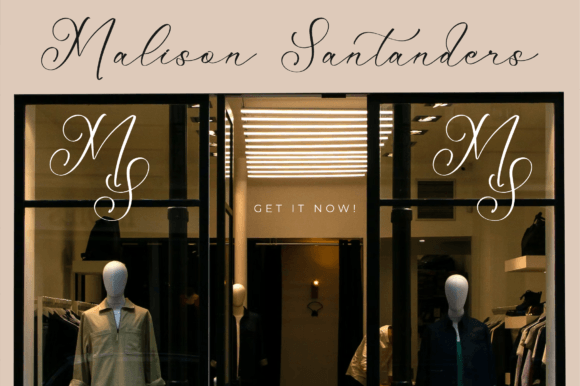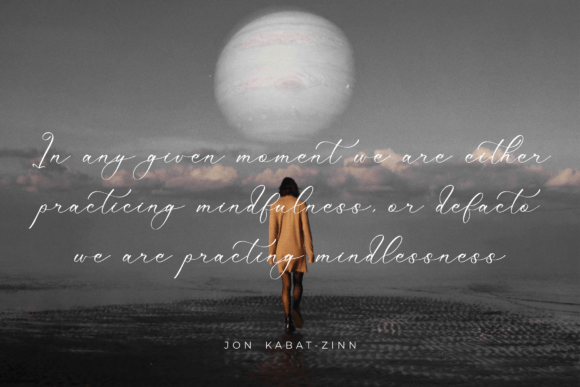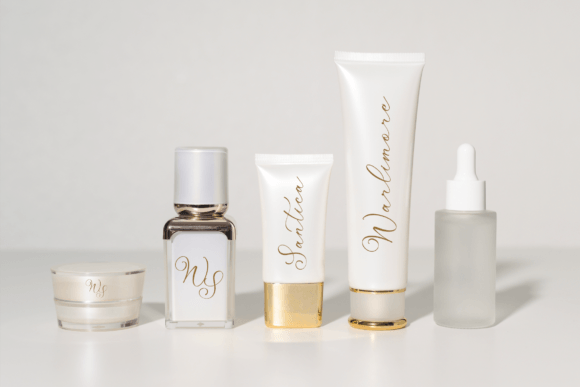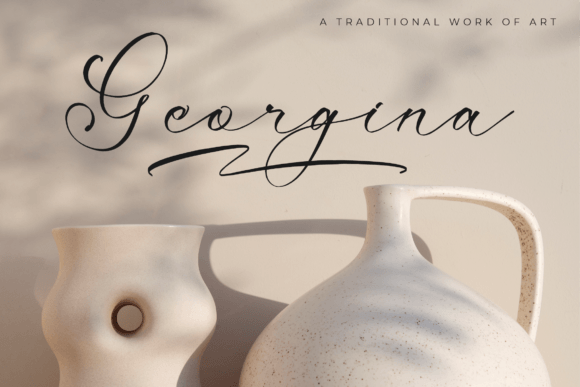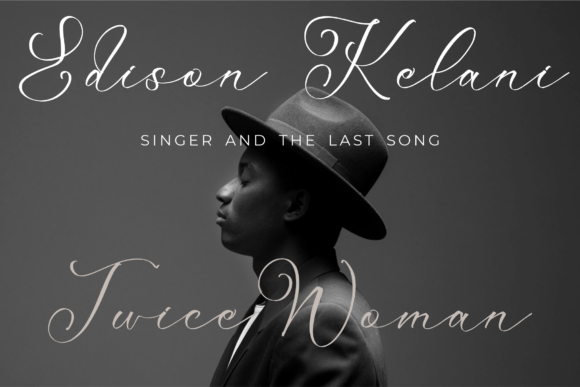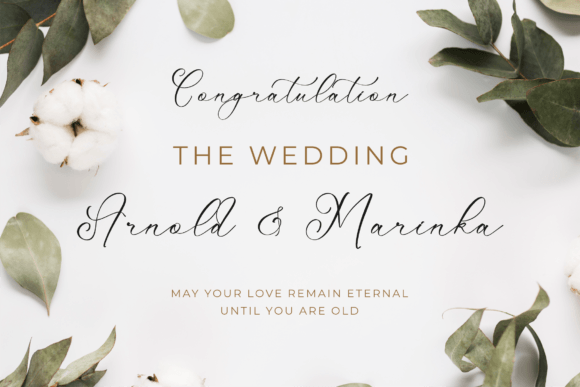
Introduction to Mattrile Vintales Font
Introducing Mattrile Vintales, a luxury script that has its own unique style & modern look.
This typeface is perfect for an elegant & luxurious logo, book or movie title design, fashion brand, magazine, clothes, lettering, quotes, and so much more .
Key Features of Mattrile Vintales Font